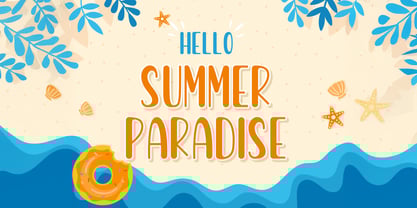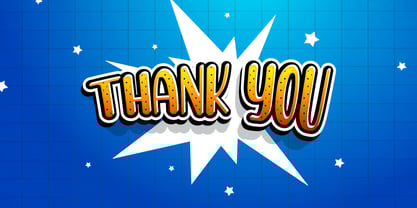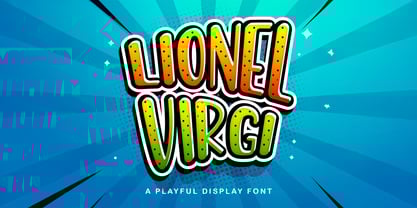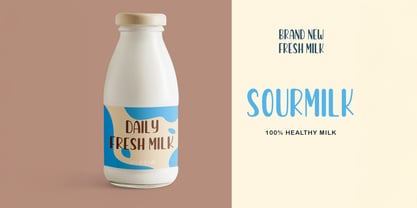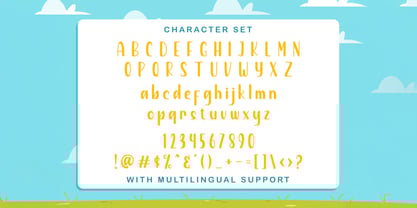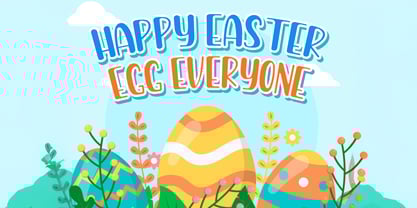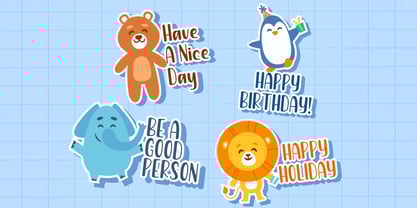
Lionel Virgi
by Stringlabs Creative Studio
The Lionel Virgi Font Family was designed by Virgiawan Listanto and published by Stringlabs Creative Studio. Lionel Virgi contains 1 styles. More about this family
Say hello to LIONEL VIRGI, a cheerful and bouncy display font bursting with playful charm! With its quirky letterforms and lively vibe, this font is perfect for designs that want to radiate joy, creativity, and friendliness. Whether you're creating kids’ content, fun posters, cartoon titles, or vibrant product packaging, LIONEL VIRGI brings a youthful and fresh personality that makes every word pop.
Designers: Virgiawan Listanto
Foundry: Stringlabs Creative Studio